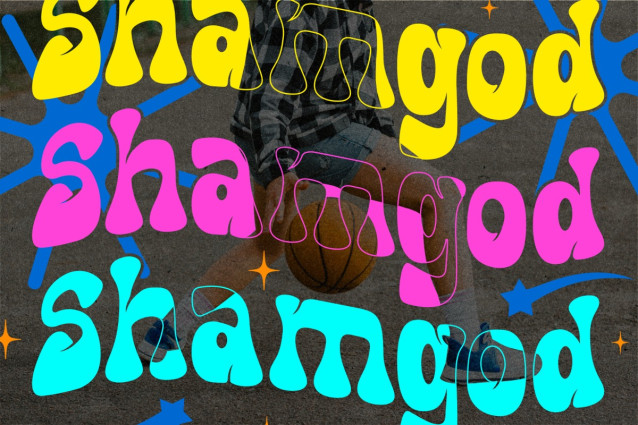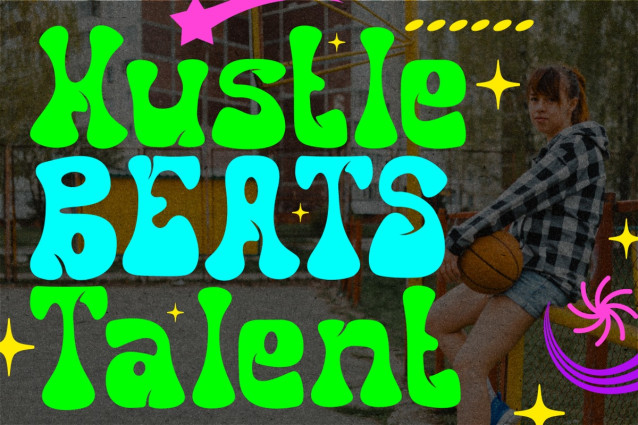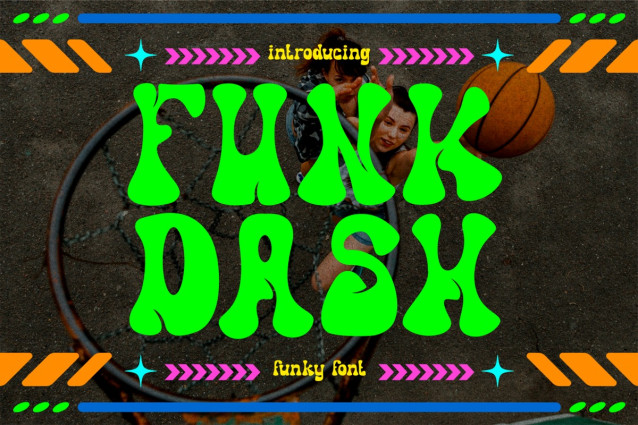
Funkdash Font is a retro-inspired typeface that bursts with personality, movement, and vibrant charm. Each letter is designed with exaggerated curves, playful widths, and fluid forms that instantly capture attention. The shapes resemble liquid drops and groovy waves, reflecting the funky, psychedelic aesthetic of the 70s while keeping a fresh, modern vibe. Funkdash works beautifully for eye-catching posters, event titles, and branding that needs bold personality. Its quirky curves and strong presence make it ideal for music artwork, funky packaging, and standout social media graphics.
This font offers a dynamic mix of retro soul and modern design flexibility, perfect for creative projects that celebrate fun and individuality. Whether used for bold headlines, vibrant logos, or expressive merchandise, Funkdash instantly sets a playful tone. Its smooth flow and funky rhythm bring energy into every design while staying highly legible. Designers looking to capture a vintage yet modern funky look will find Funkdash an essential addition to their font collection.